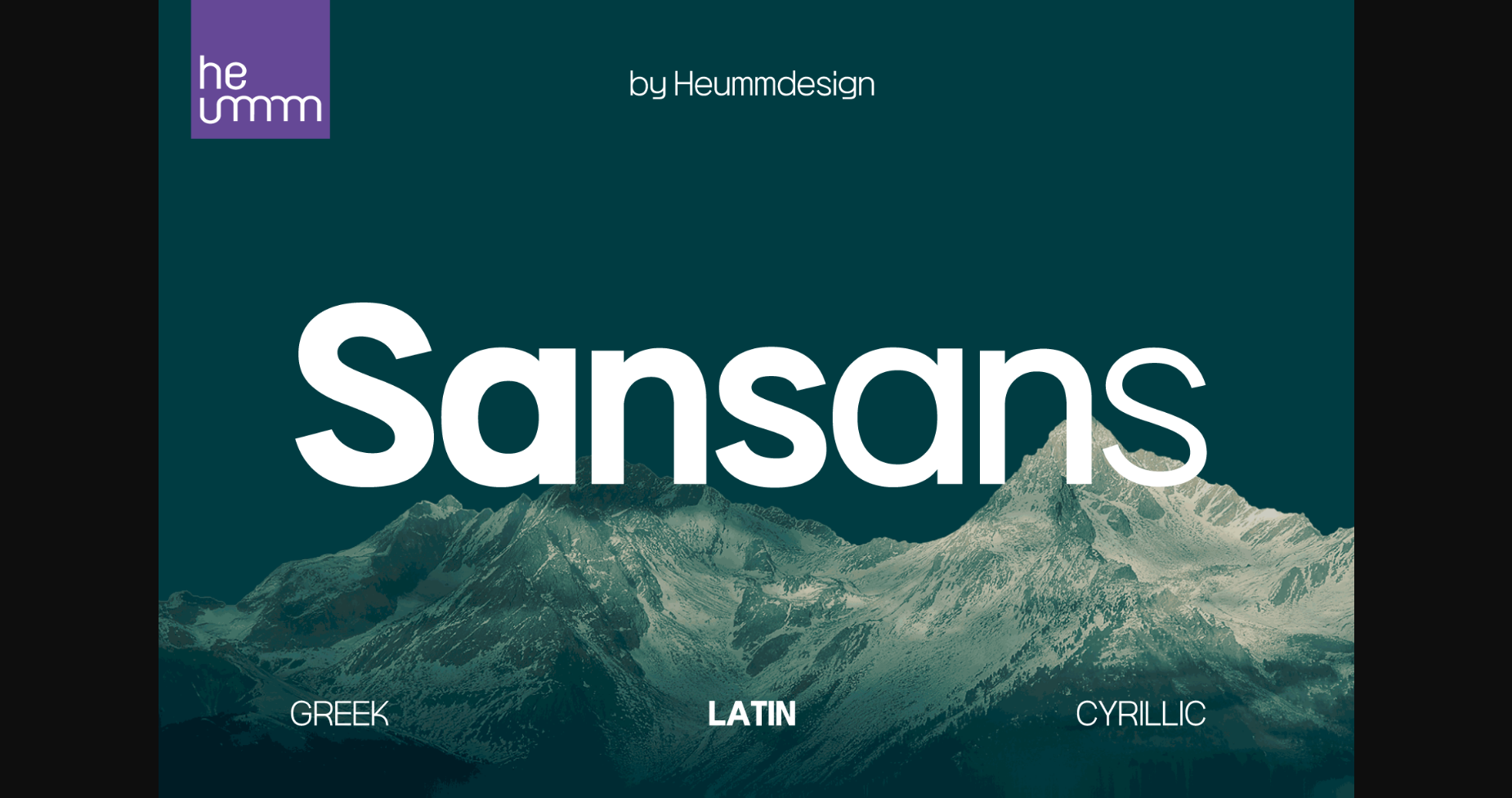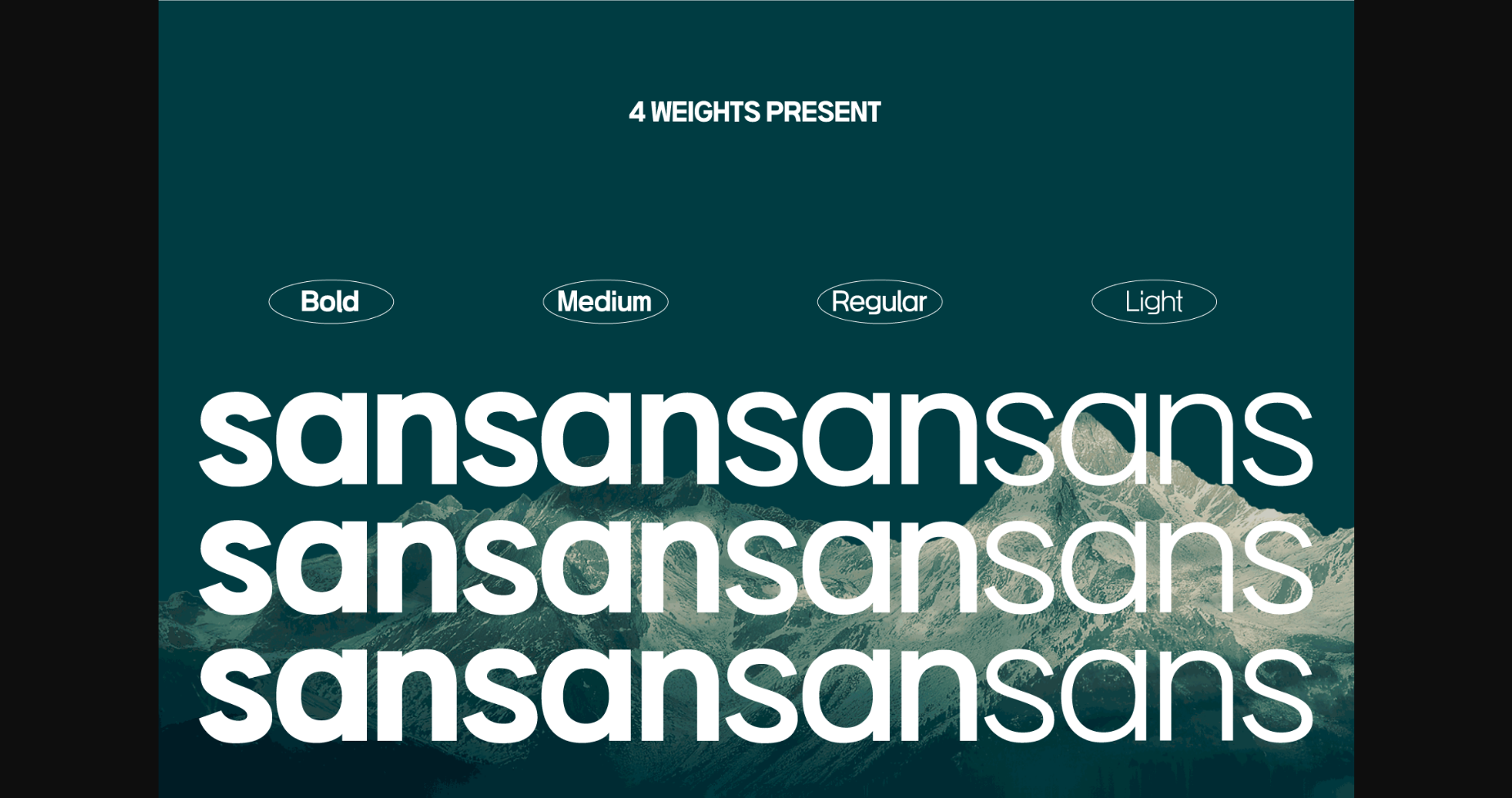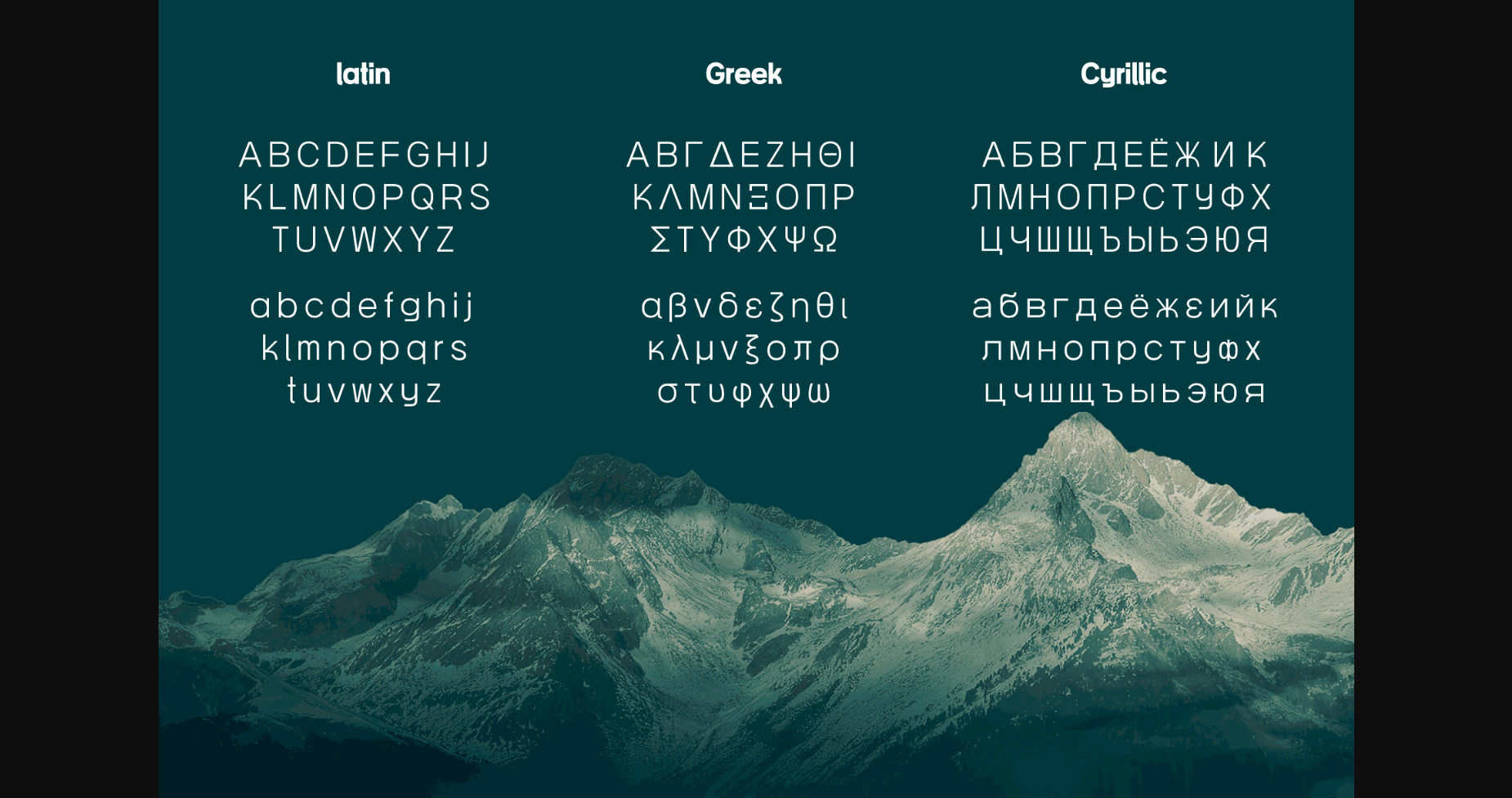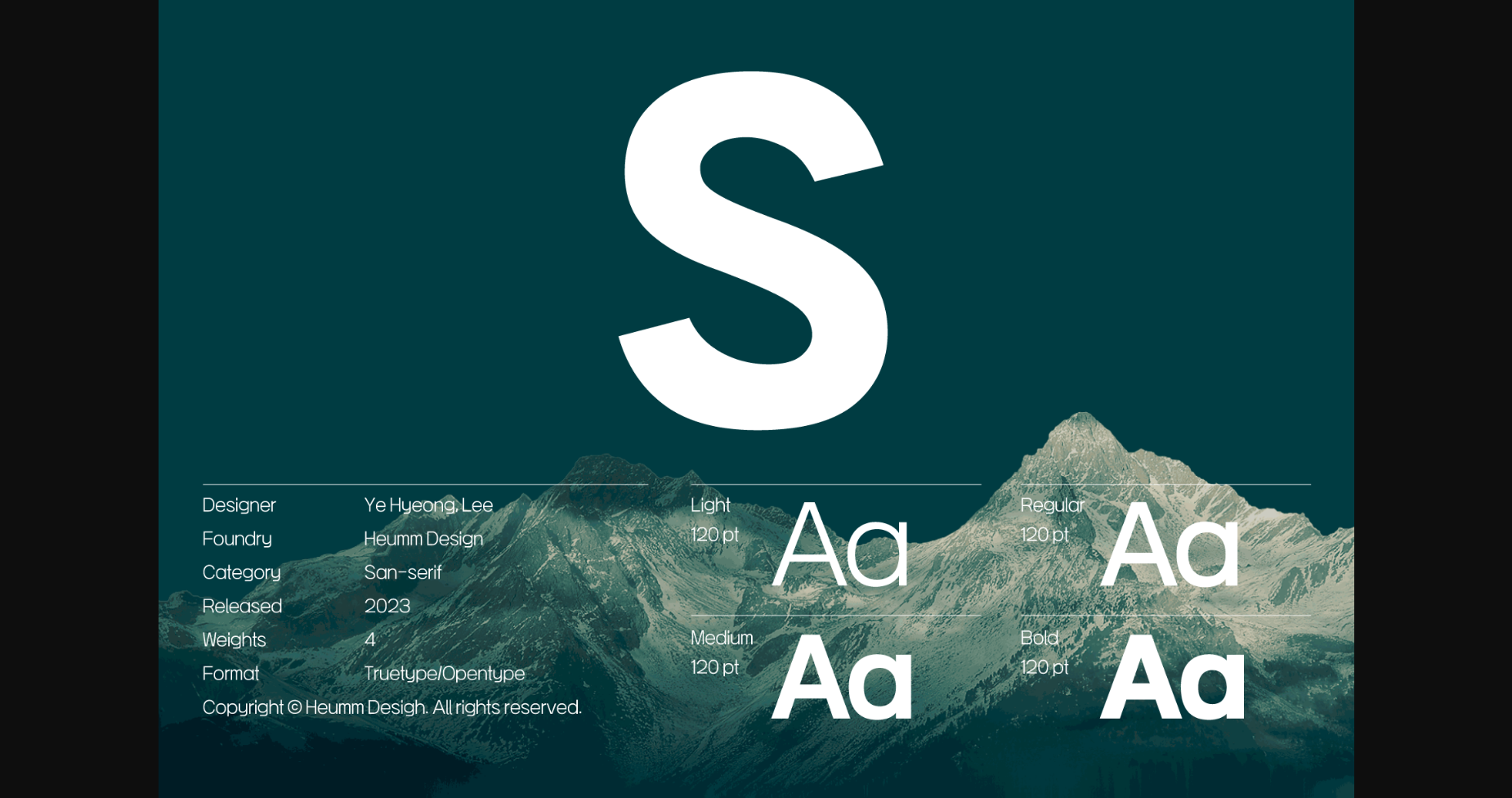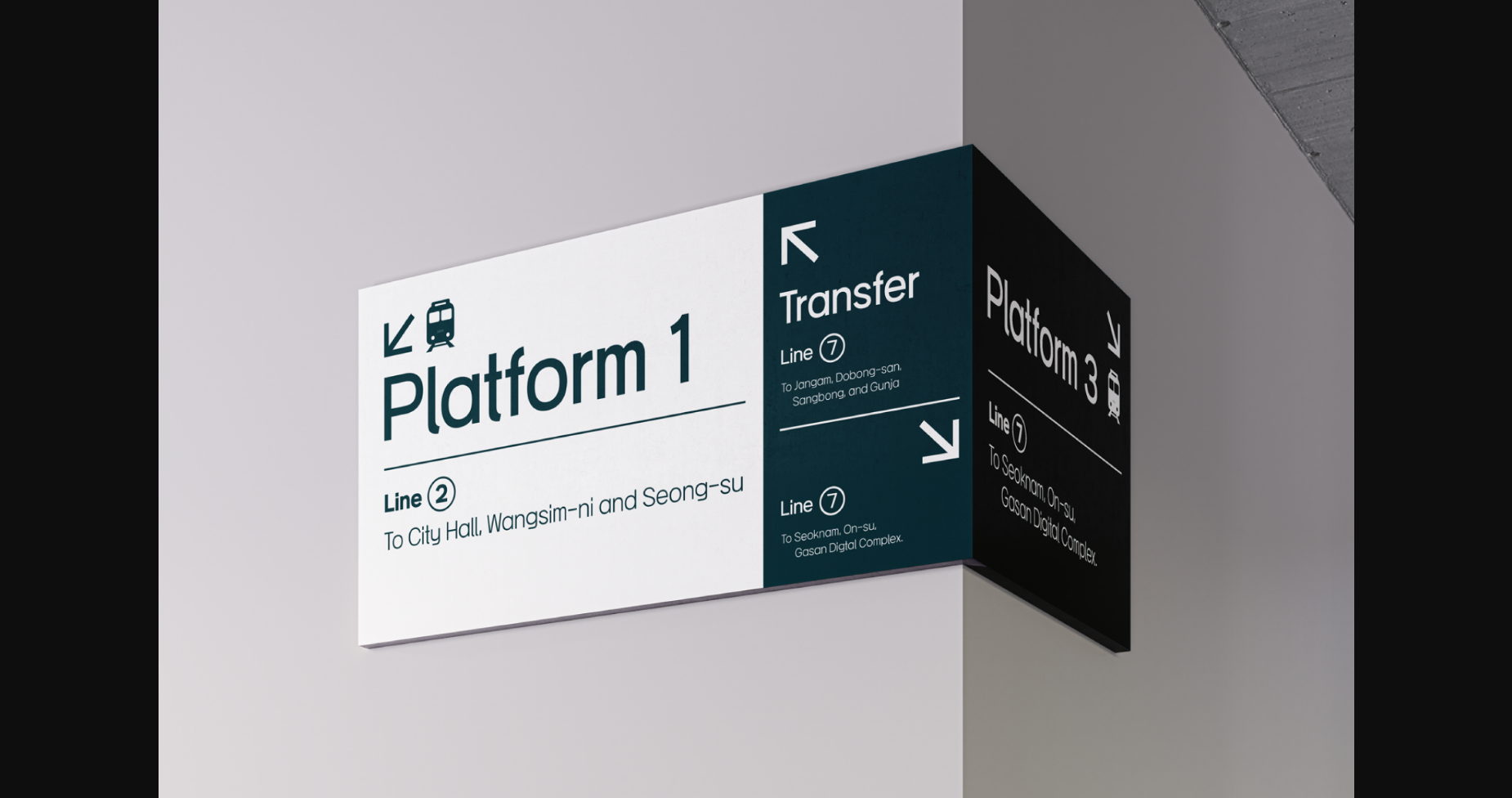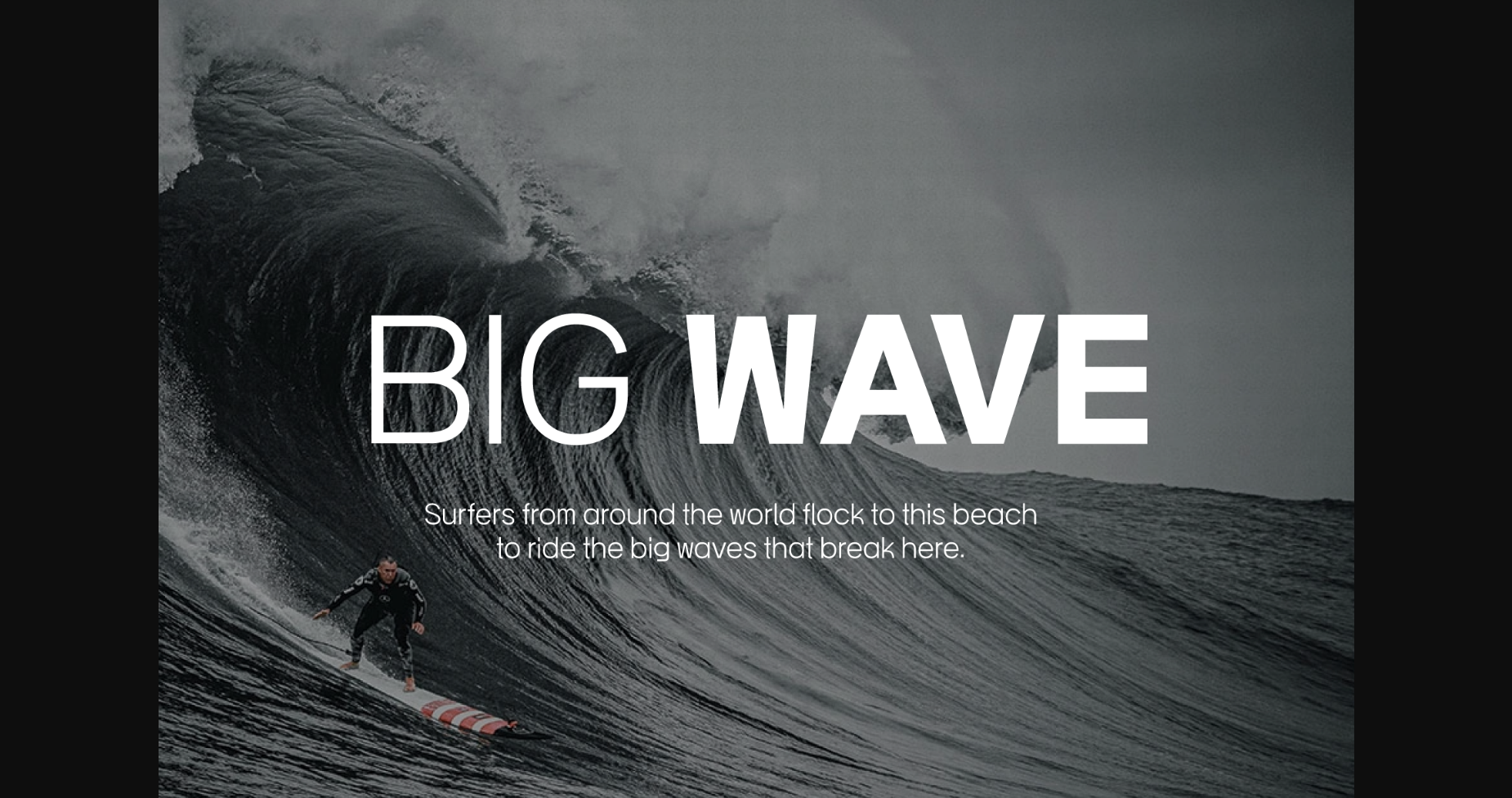
Hu Sansans Font
About Hu Sansans Font
HU Sansans is a clean and modern sans-serif font that is perfect for creating a sleek and contemporary look. With its minimalist design and clear lines, it’s versatile enough to be used in a variety of applications from logos and branding to web and print design. Its simplicity adds a touch of elegance to any project.